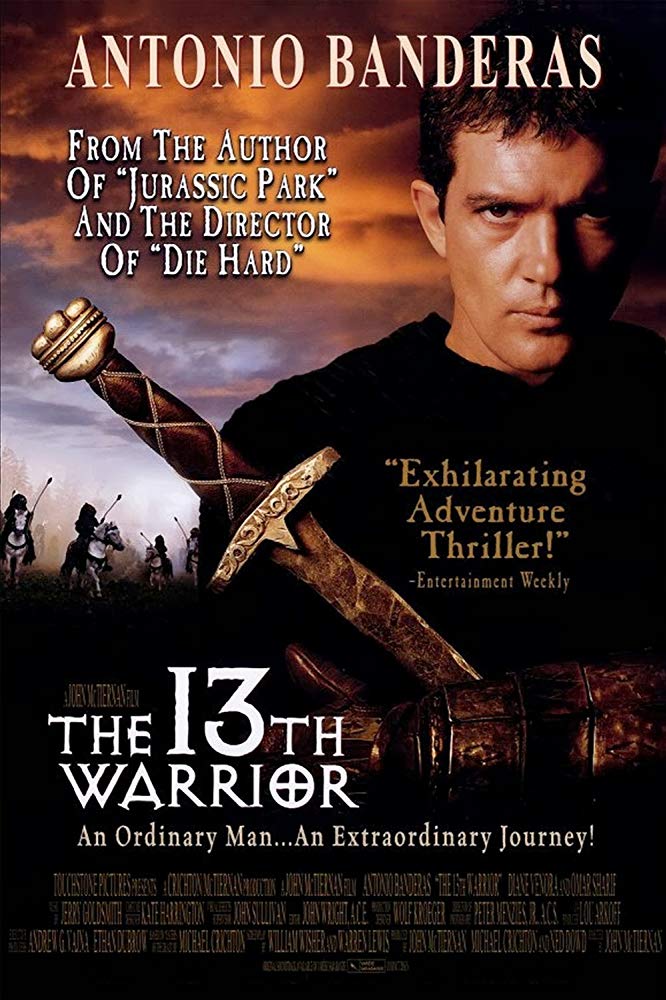
The 13th Warrior Font
Fonts in UseThe 13th Warrior is a 1999 action-adventure film based on Michael Crichton's novel "Eaters of the Dead." It follows an Arab ambassador, played by Antonio Banderas, who joins a group of Viking warriors on a quest to defeat a tribe of cannibalistic creatures.
The poster's film title features the Exocet typeface, a display font with three weights that British typographer Jonathan Barnbrook designed and Emigre foundry released in 1991.